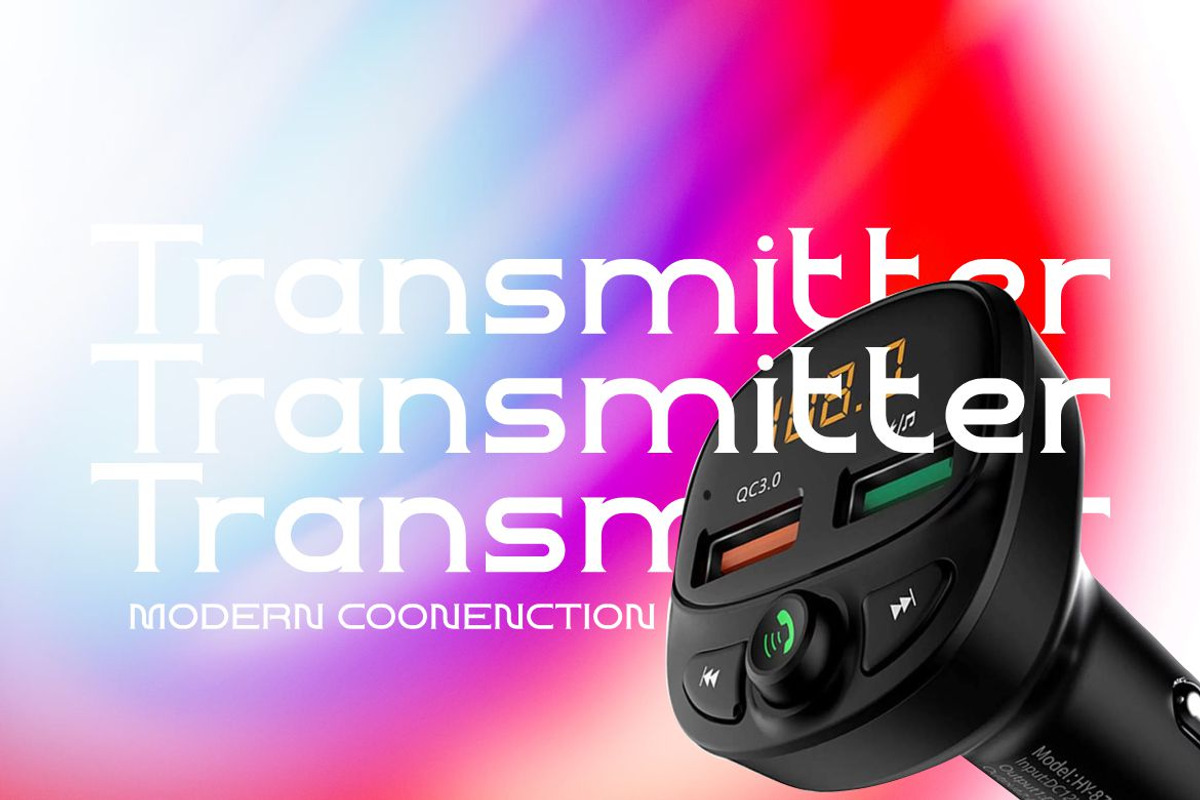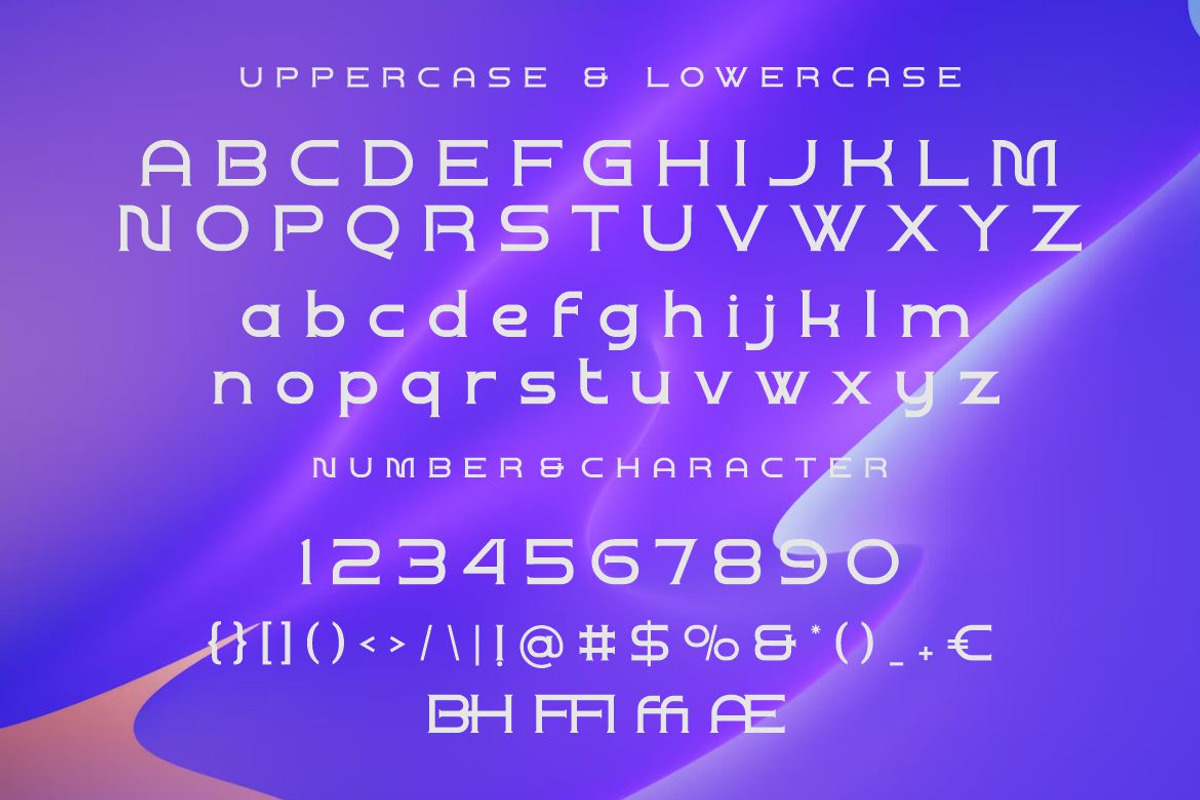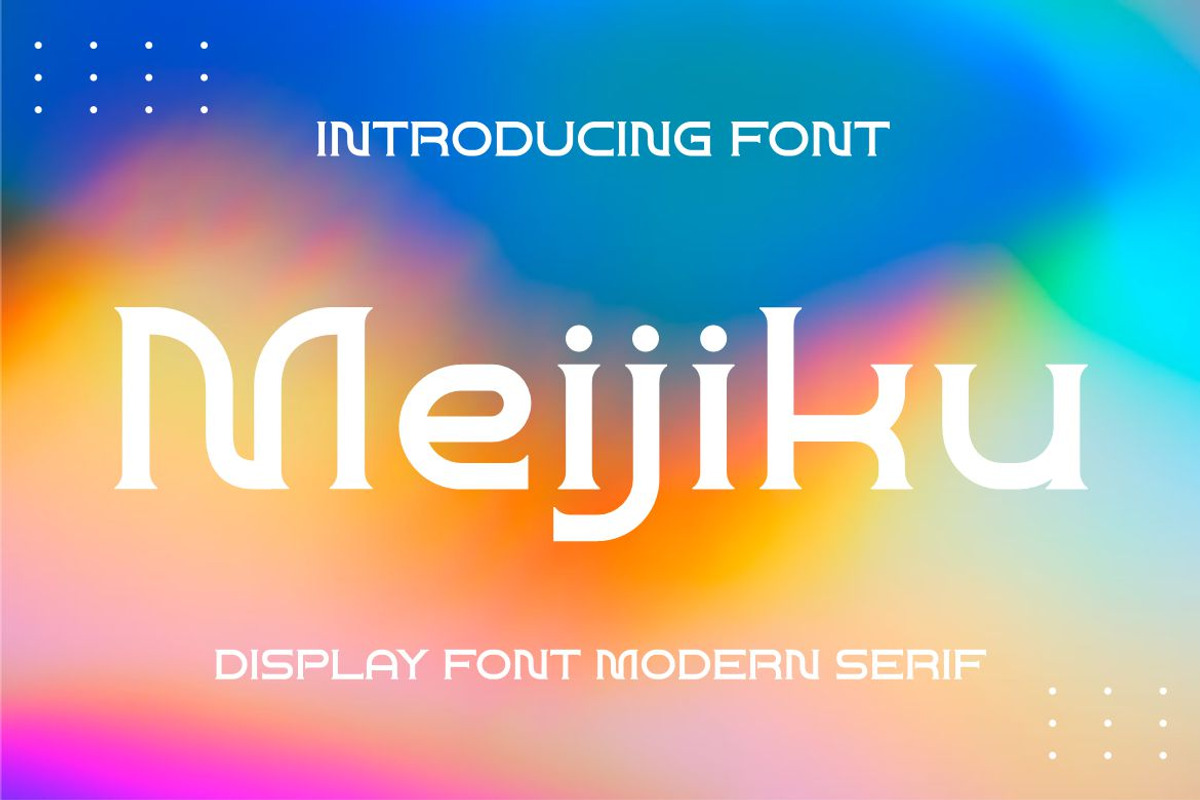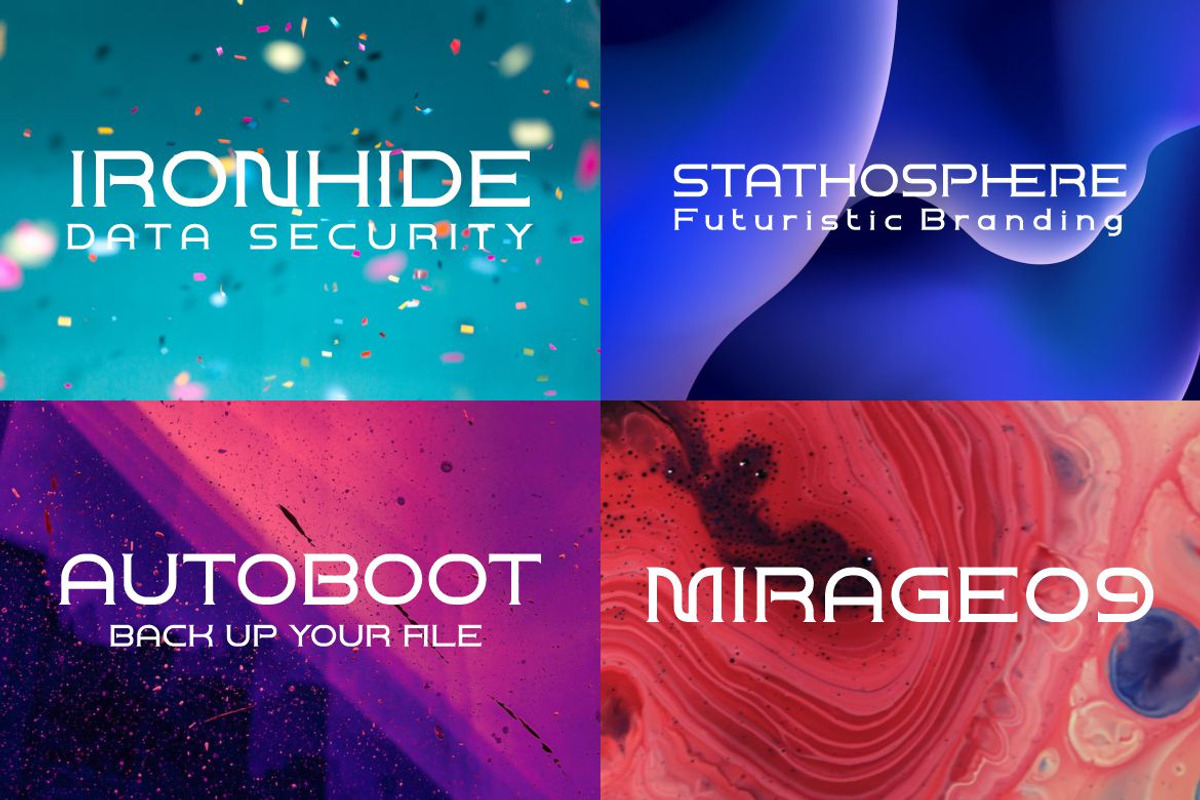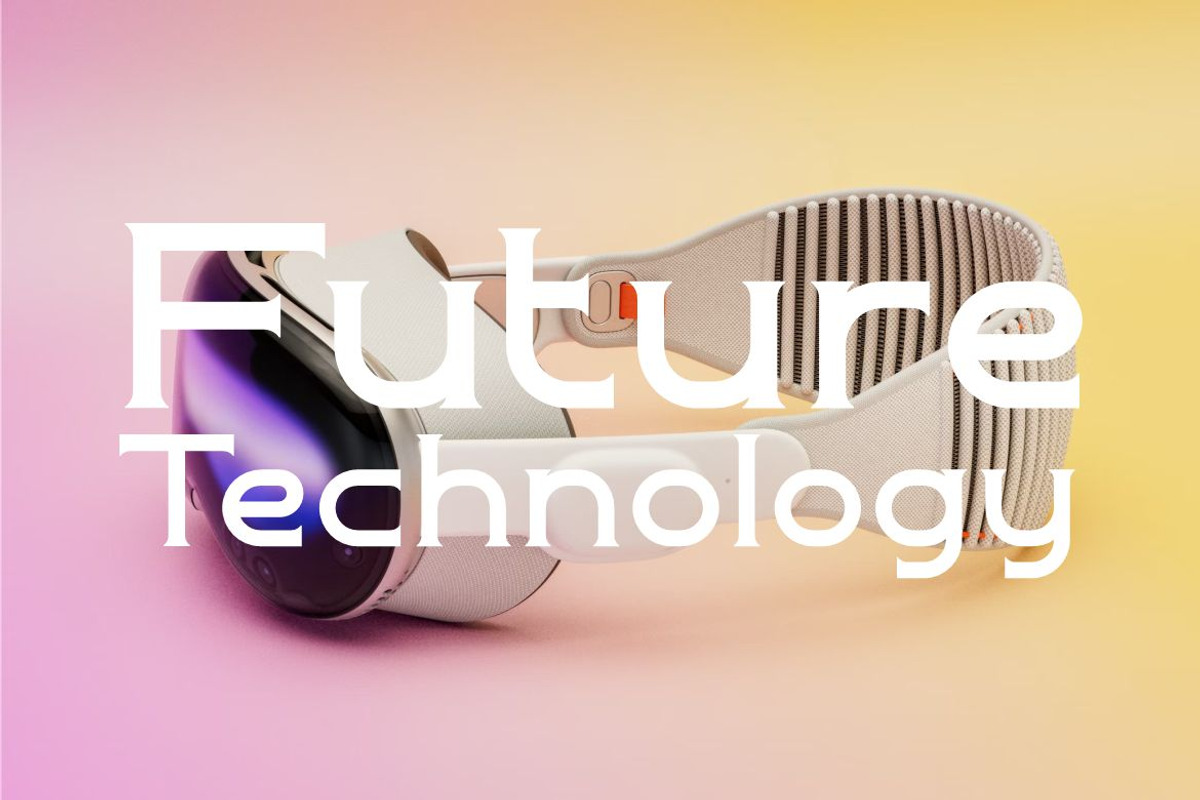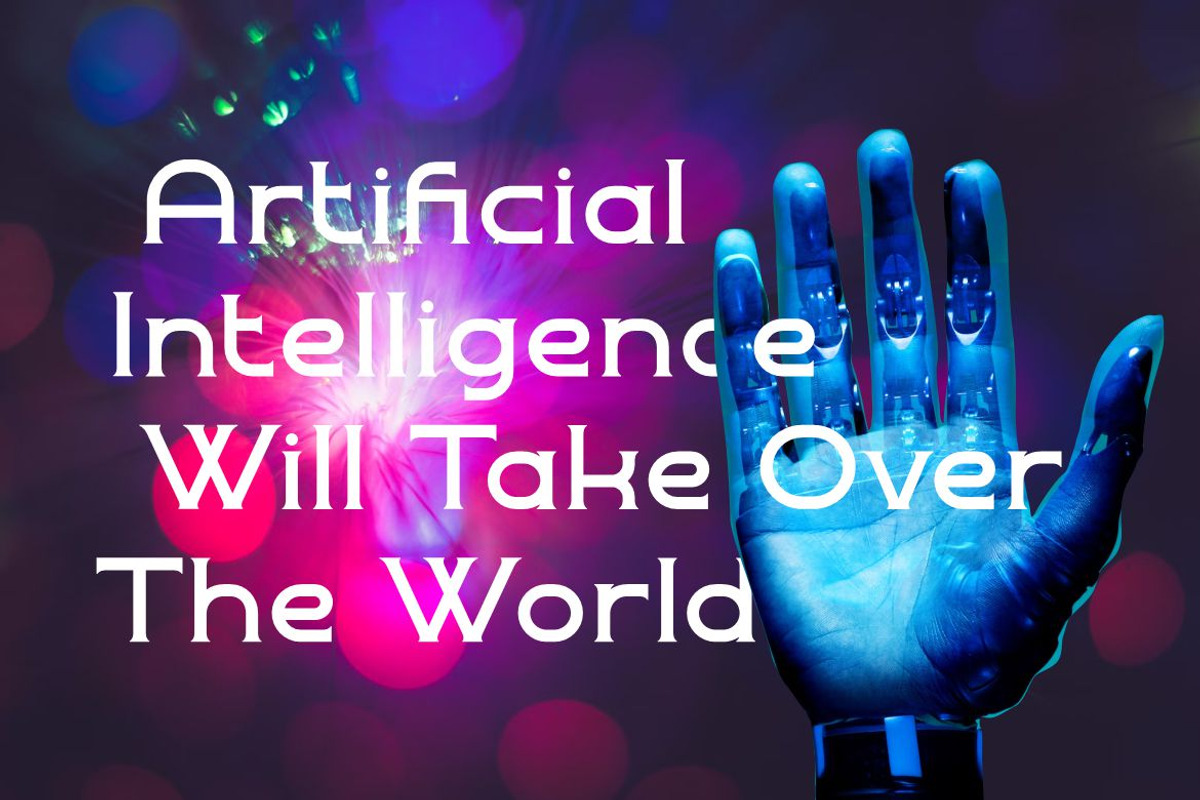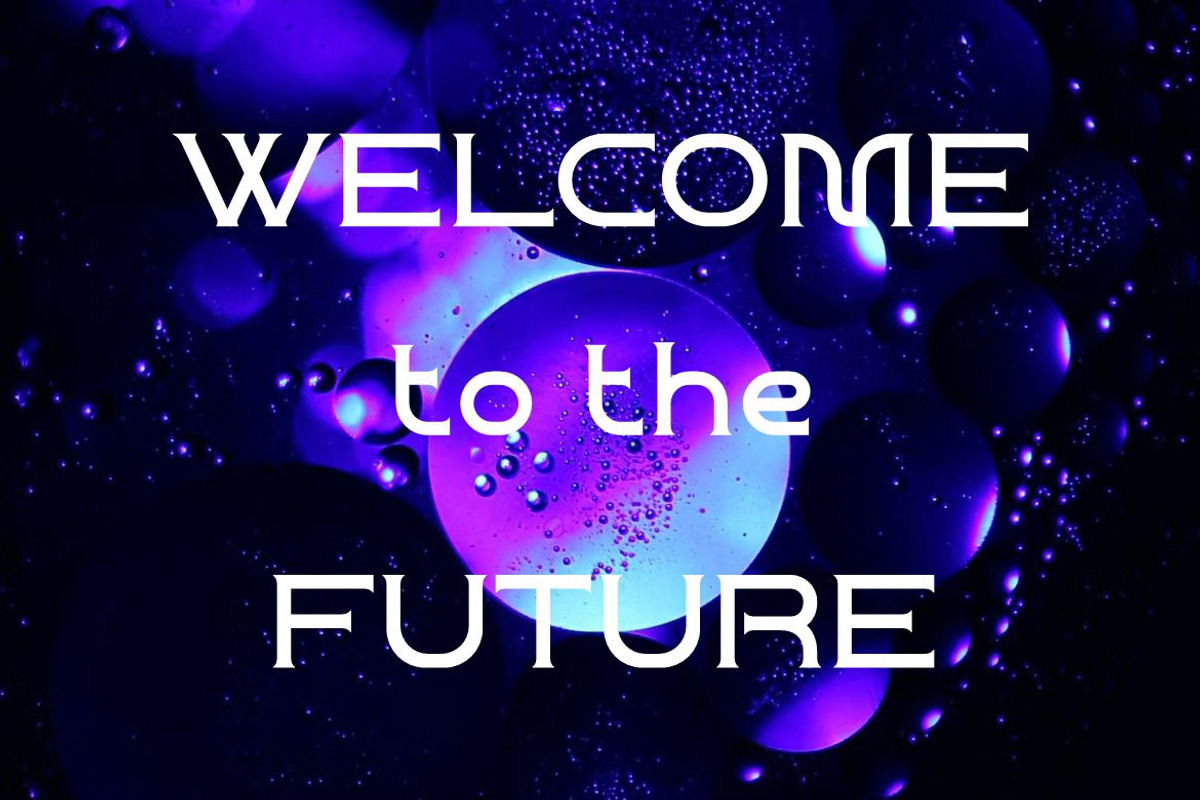
Meijiku
Meijiku font includes capital letters, numbers, and various punctuation marks. Sans serif font with a stylish modern style. Created for posters, web design, branding, illustrations, badges and several other works